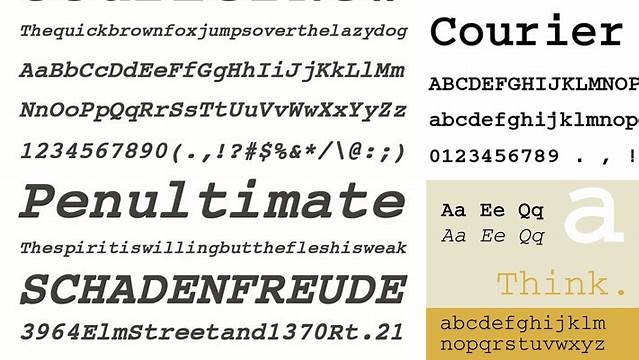
Hey guys! Ever needed a reliable, no-nonsense font that just works? Then let's talk about Courier New! It's that classic, monospaced typeface that's been a staple in writing, coding, and design for ages. In this article, we'll dive deep into everything Courier New, from where to snag a free TTF download to how to use it like a pro. So, buckle up, and let's get started!
1. What is Courier New Font?
Courier New font is a monospaced slab-serif typeface. This means that each letter occupies the same horizontal space, mimicking the output of typewriters. This characteristic makes it incredibly useful in contexts where character alignment is crucial, such as in coding, technical documentation, and screenplays. The Courier New font was designed to be a digital adaptation of the original Courier, ensuring legibility across various screen resolutions. Its clear, straightforward design lends itself well to situations where clarity and consistency are key, eschewing fancier or more decorative typefaces. Courier New has a very distinct and recognizable appearance, making it a reliable choice for anyone needing a universally accepted and easily readable font.
2. Why Choose Courier New Font?
Choosing the Courier New font comes with several compelling reasons. Its monospaced nature ensures perfect alignment of characters, which is indispensable in coding and tabular data. Legibility is another significant advantage; Courier New is designed for clarity, reducing eye strain and improving readability. The Courier New font is also universally recognized and supported across different platforms and systems, ensuring that your documents appear as intended regardless of the viewer's setup. Furthermore, its simplicity avoids distractions, making it ideal for technical writing, screenplays, and any content where the focus should remain solely on the information being presented. Finally, the Courier New font projects a sense of straightforward professionalism, which can be particularly beneficial in certain formal or technical contexts.
7. Courier New for Coding: Why It's Popular
Courier New font is a popular choice for coding due to its monospaced nature, where each character occupies the same amount of horizontal space. This makes it easy to align code, which is crucial for readability and debugging. With Courier New, it’s simple to spot errors and structural issues because indentation and alignment are visually clear. Many Integrated Development Environments (IDEs) and text editors offer Courier New as a default or recommended font for coding. Its straightforward design also helps reduce eye strain during long coding sessions. While some modern monospaced fonts offer more features and aesthetic appeal, Courier New remains a reliable and universally recognized option. The Courier New font's classic appearance ensures compatibility across different systems, making it a safe bet for collaborative projects.
8. Courier New in Web Design: Considerations
Using Courier New font in web design requires careful consideration. While its monospaced nature can be useful for displaying code snippets or preformatted text, it's generally not ideal for body text. Courier New can appear somewhat dated and less visually appealing compared to more modern sans-serif fonts commonly used on the web. However, it can be effective for specific design elements, such as displaying error messages, code examples, or in designs aiming for a retro or typewriter-like aesthetic. When using Courier New, ensure sufficient contrast between the text and background to enhance readability. Also, consider the overall visual impact and whether it aligns with your brand's identity. The Courier New font should be used sparingly and intentionally to avoid making your website look unprofessional or difficult to read.
30. Future Trends for Monospaced Fonts like Courier New
Looking ahead, future trends for monospaced fonts like the Courier New font involve a greater emphasis on readability and aesthetics. While Courier New remains a functional and reliable choice, newer monospaced fonts are incorporating improved character designs and enhanced legibility features. These fonts often include subtle variations in stroke width and character spacing to reduce eye strain. There's also a growing trend towards variable fonts, which allow for greater customization of font weight and style. The Courier New font may see updates or adaptations to incorporate these modern features. The future of monospaced fonts lies in balancing functionality with visual appeal, ensuring they remain relevant in a rapidly evolving digital landscape.